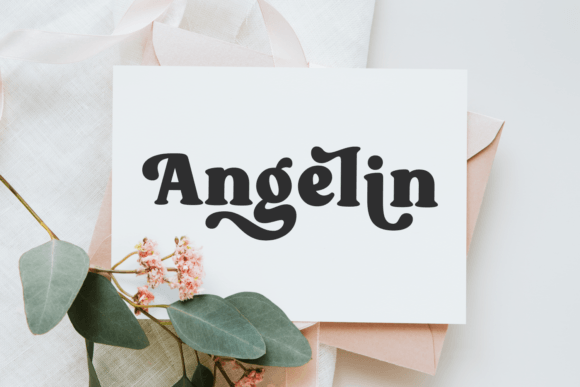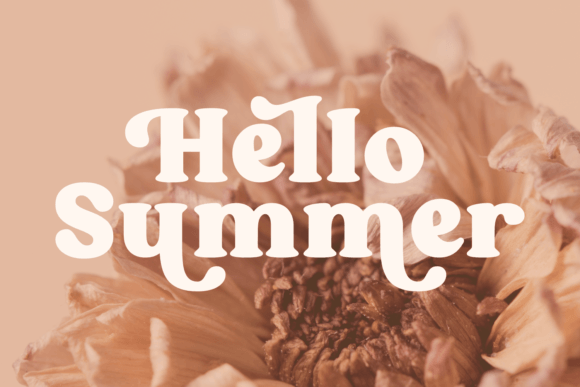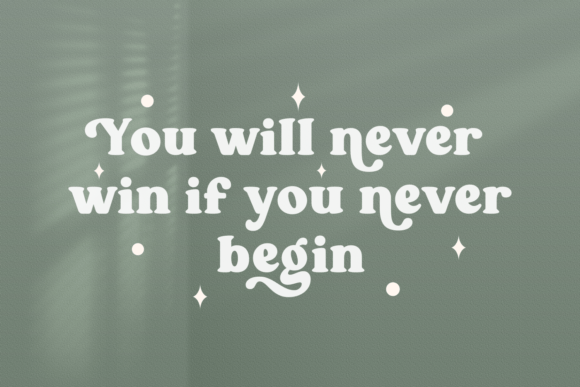
Introduction to Snoring Font
Snoring is a charming serif handwritten font that exudes warmth and personality.
With its graceful curves and distinctive serifs, Snoring adds a touch of handcrafted elegance to your projects Whether used for invitations, headlines, or creative designs, this font brings a delightful and approachable feel to your written expressions.